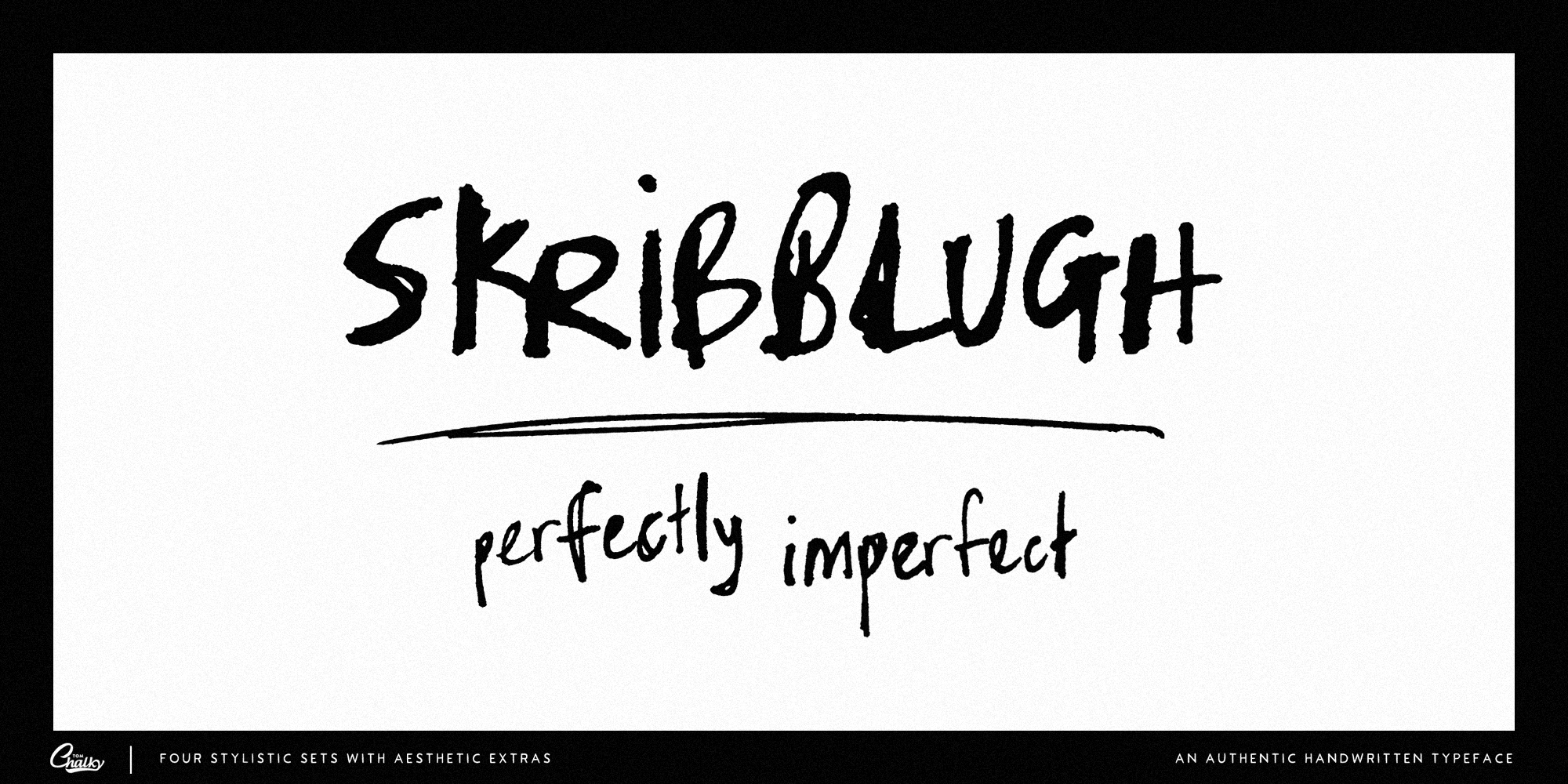
Skribblugh Font is perfect for children's book illustrations, playful comic strips, creative art classes, fun birthday party invitations, quirky cartoon projects, casual doodle artwork, whimsical brand identities, and imaginative design projects that require spontaneous typography with childlike creativity and authentic scribbled character.
This Skribblugh Font is exciting because it authentically captures the spontaneous joy of creative doodling with irregular, hand-drawn letterforms that look like they were sketched with enthusiasm and playful abandon, featuring organic imperfections and scribbled texture that convey genuine artistic spontaneity and creative freedom.
The Skribblugh Font family includes playful weights with authentic scribbled styling, complete character sets with irregular uppercase and lowercase letters, doodled numerals, sketchy punctuation, and artistic symbols that provide comprehensive typography solutions for creative and playful design projects requiring genuine hand-drawn aesthetics and whimsical appeal.
Perfect for creating engaging creative communications and playful brand identities, Skribblugh Font Free Download delivers the spontaneous typography that transforms text into joyful expressions of artistic creativity and imaginative freedom. This distinctive typeface embodies the essence of creative doodling and artistic play, making it essential for projects celebrating artistic expression, creative education, playful branding, and any design requiring whimsical character with authentic hand-drawn sophistication and timeless creative charm that inspires imagination.